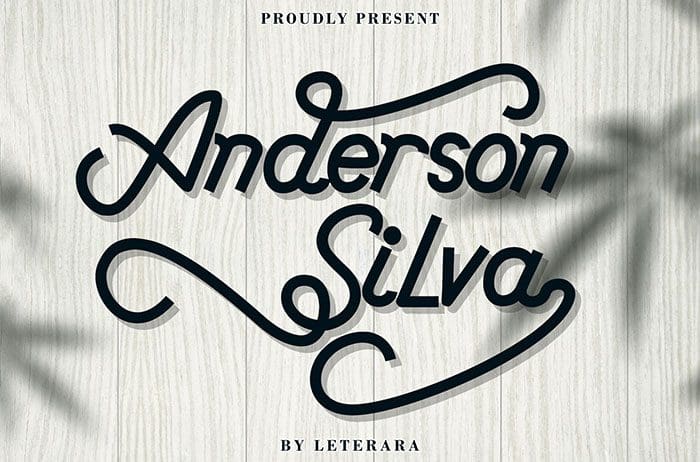
Anderson Silva Script Font
Anderson Silva script font is a monoline script that looks elegant and classy. It will add a charming touch to any crafting project! Designed this font by Thomas Aradea. You can also search more freeĀ Script Fonts. Thanks.